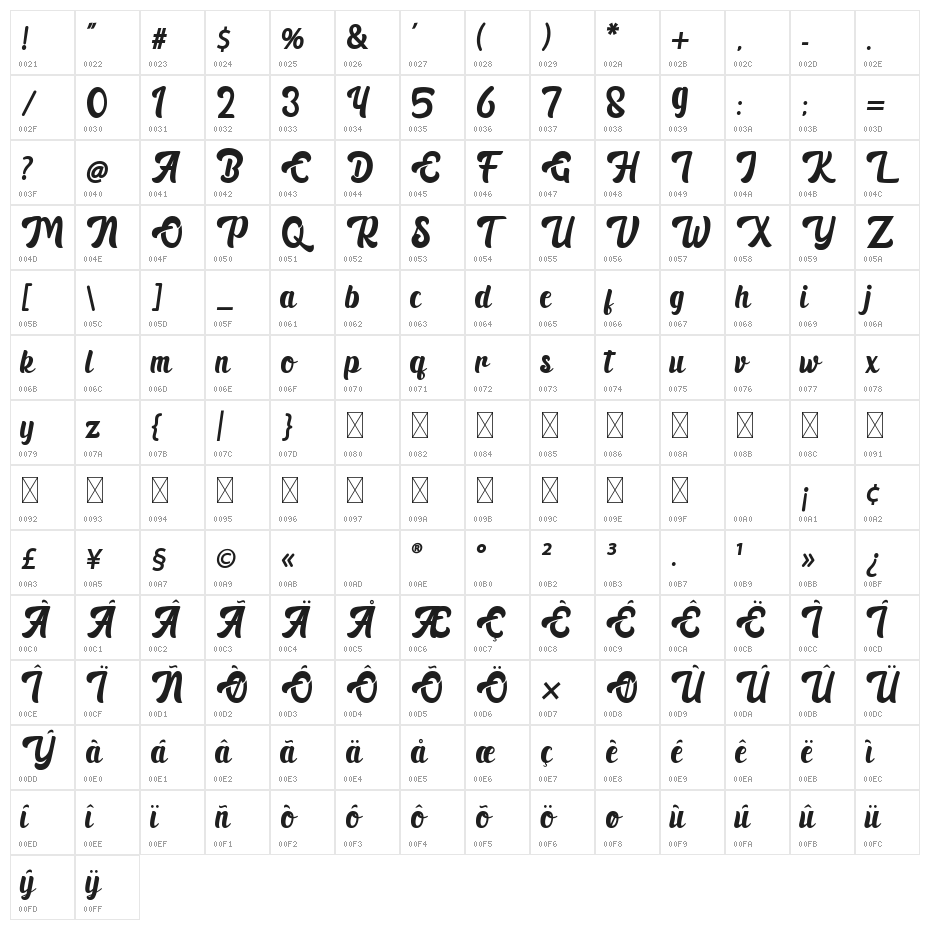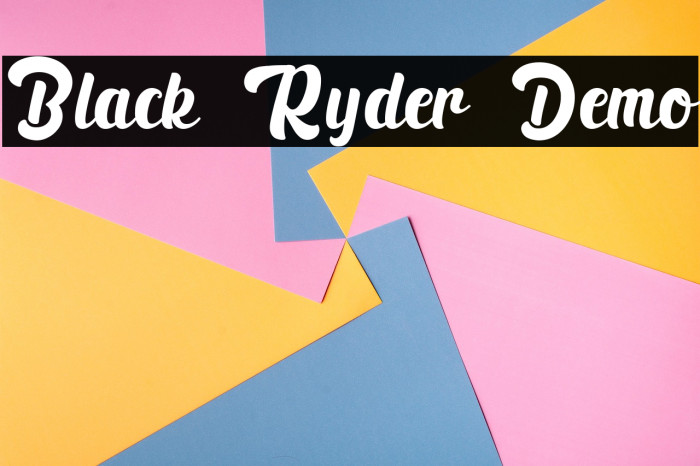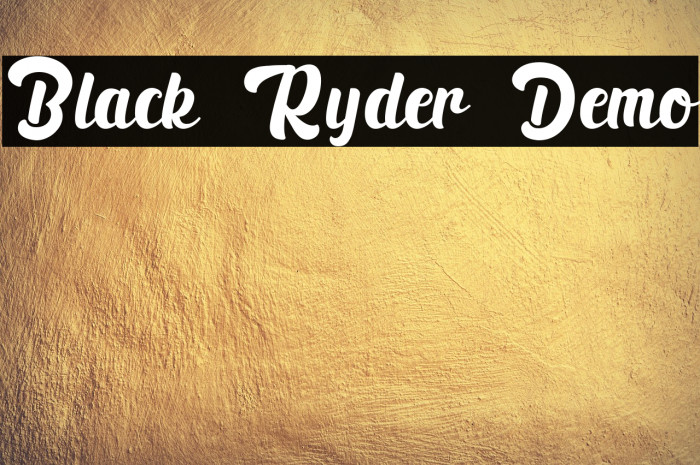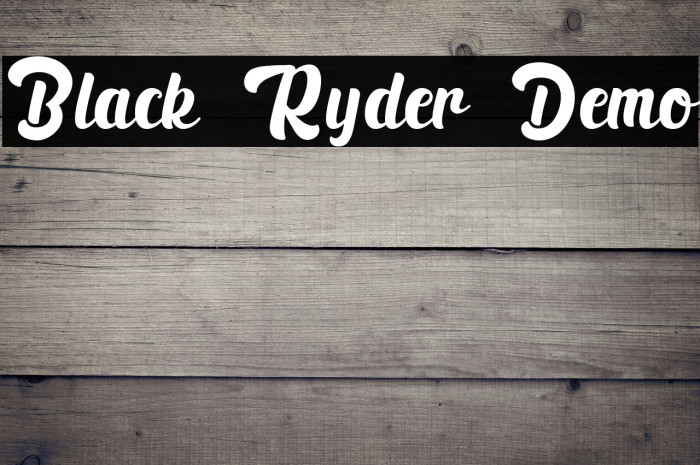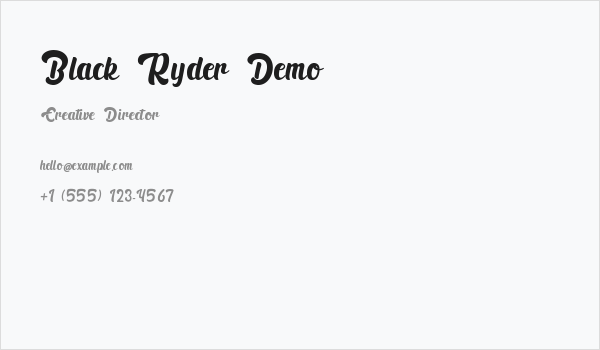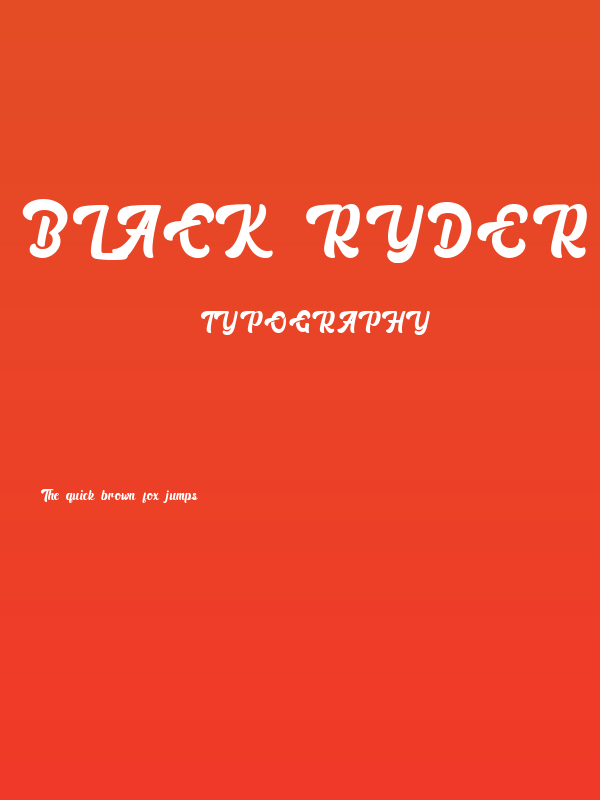
Black Ryder Demo Font
Black Ryder Demo Description
This font features a bold and dynamic script style with a strong presence. The characters are connected in a flowing manner, giving it a sense of movement and elegance. The uppercase letters are slightly more formal, while the lowercase letters maintain a casual, handwritten feel. The numerals are consistent with the overall style, ensuring readability while maintaining the decorative flair. Special characters are well-integrated, adding versatility to the font. The strokes are thick and consistent, providing a bold appearance that stands out.